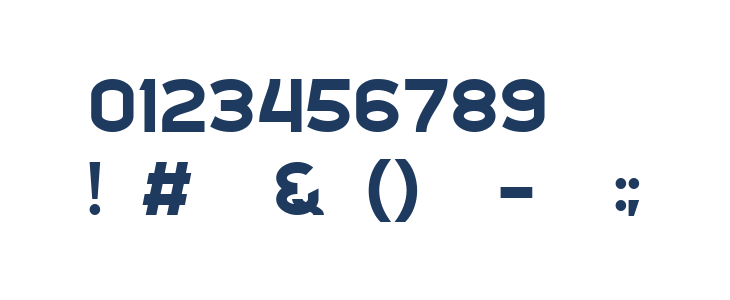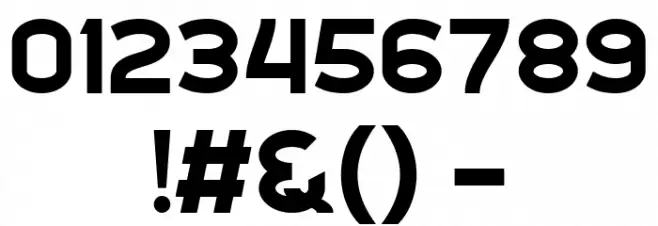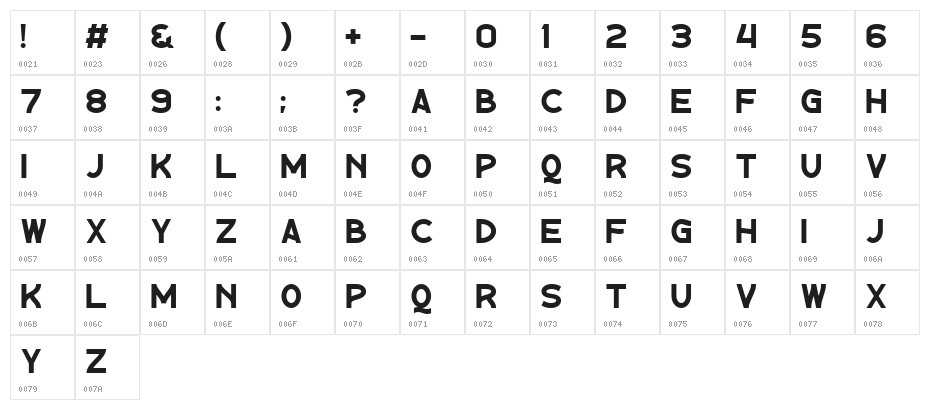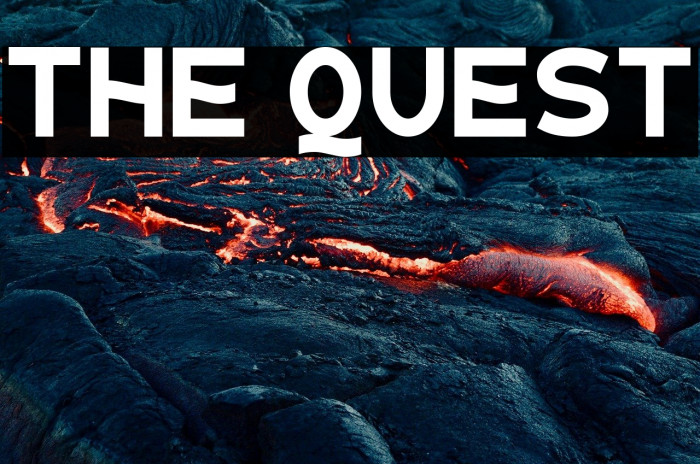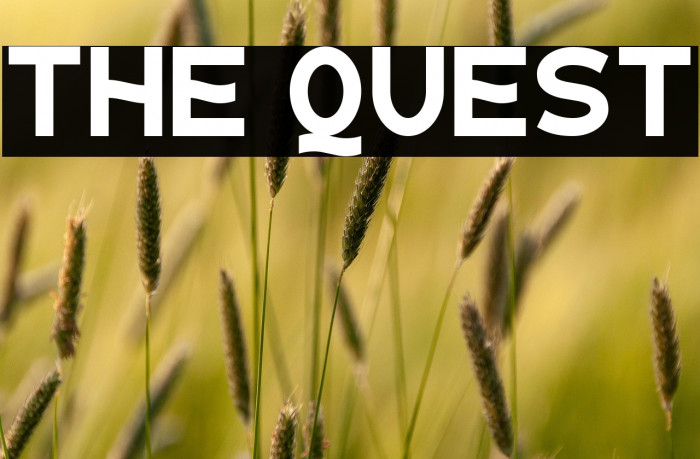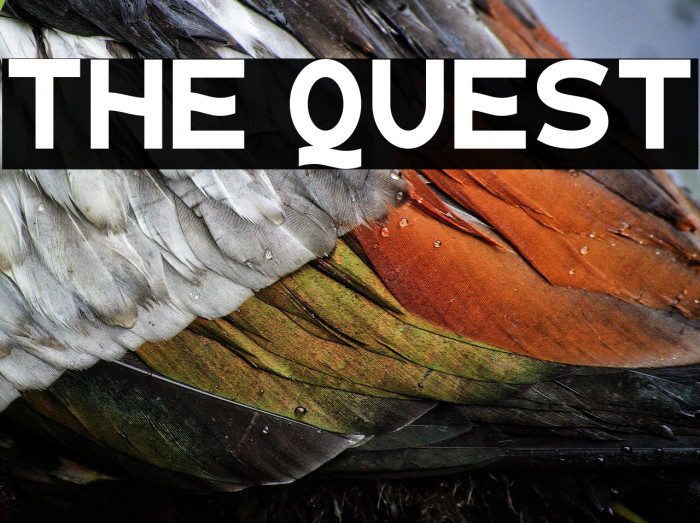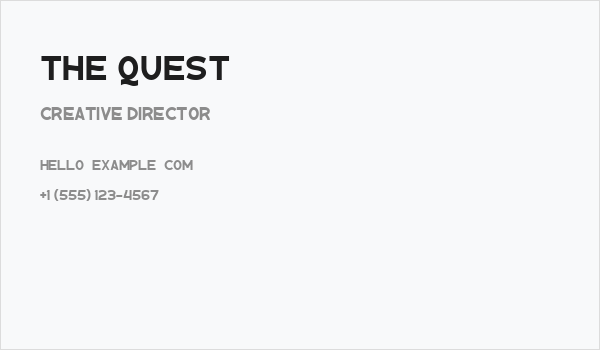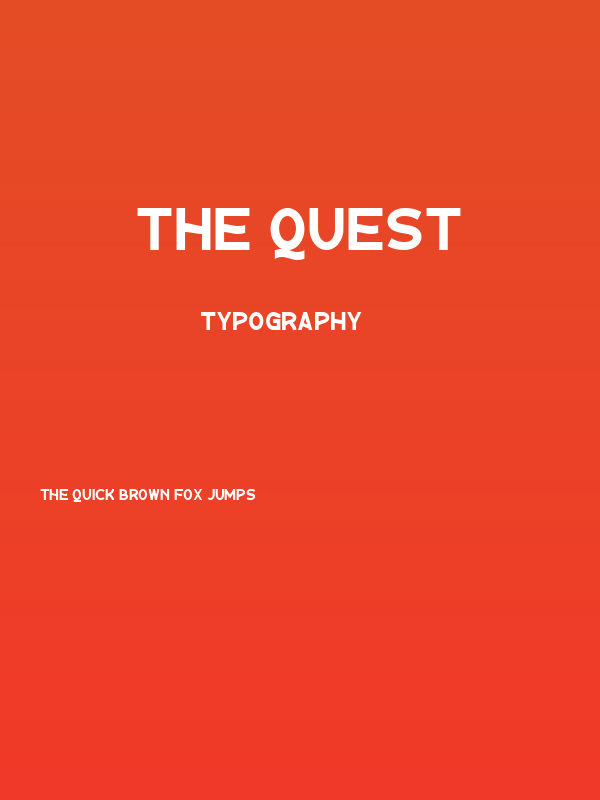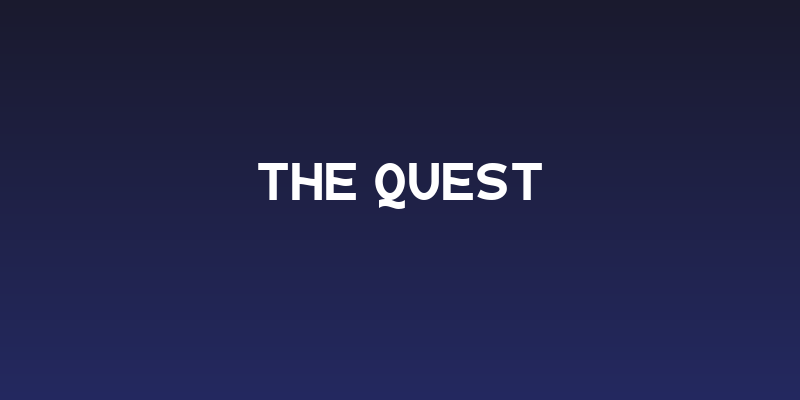
The Quest Font
The Quest Description
This font exhibits a bold and modern aesthetic with strong geometric shapes and clean lines. The characters are uniformly thick, contributing to a robust and impactful appearance. The uppercase letters are particularly striking, with a consistent height and width that enhance readability. The lowercase letters maintain the same boldness, ensuring a cohesive look across different text sizes. Numbers are clear and distinct, making them suitable for both display and functional purposes. The special characters are well-integrated, maintaining the overall style of the font. This typeface is versatile, offering a contemporary feel that can be adapted to various design needs.
A bold, modern font with geometric shapes and clean lines from Regular fonts.
- Font: The Quest
- Proposed Projects: Ideal for branding, headlines, posters, and digital media where a strong visual impact is desired.